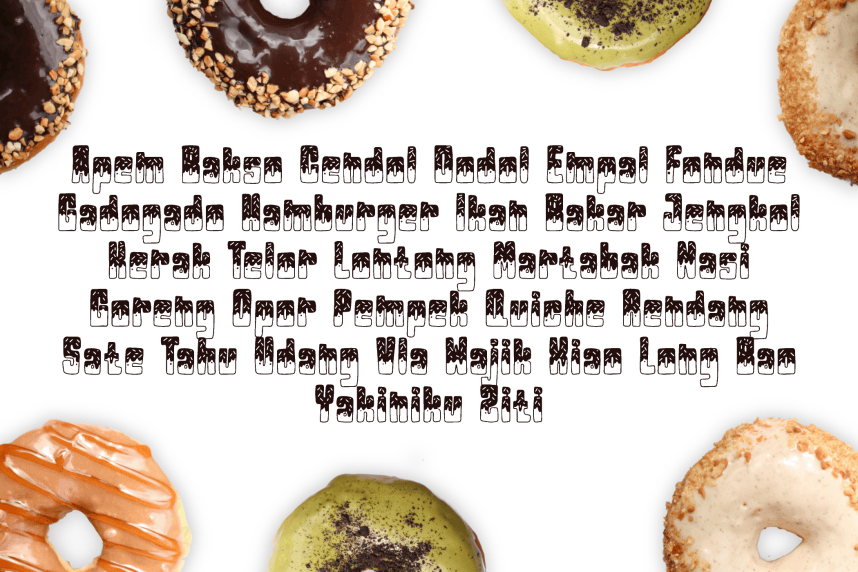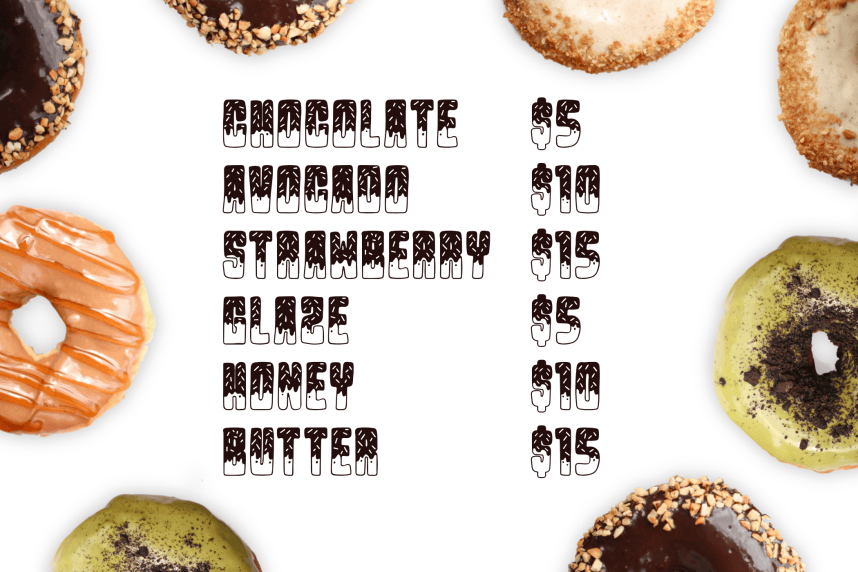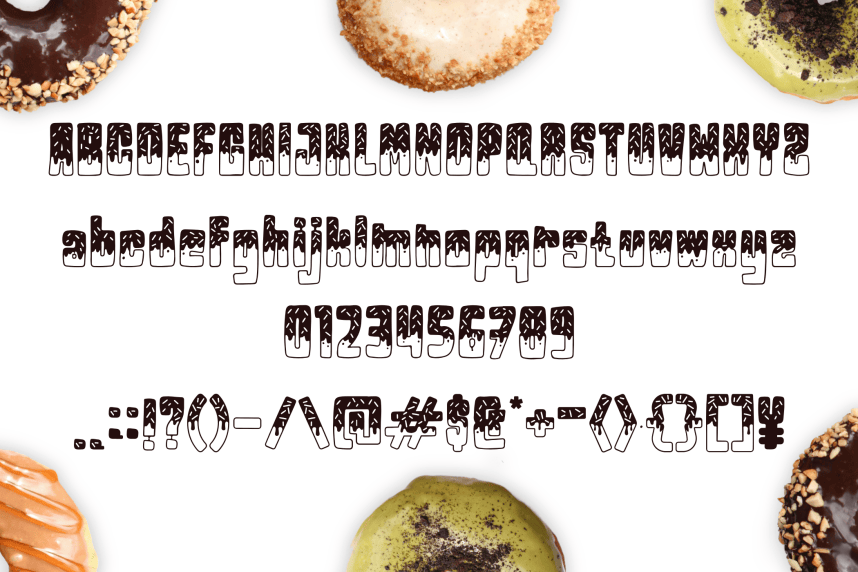
Donut Cookie Font – fun display font inspired by melted chocolate and sprinkles, bringing a sweet, playful energy to any design. Great for donut shops, chocolatiers, dessert brands, and cafe menus that want to stand out with a delicious visual theme.